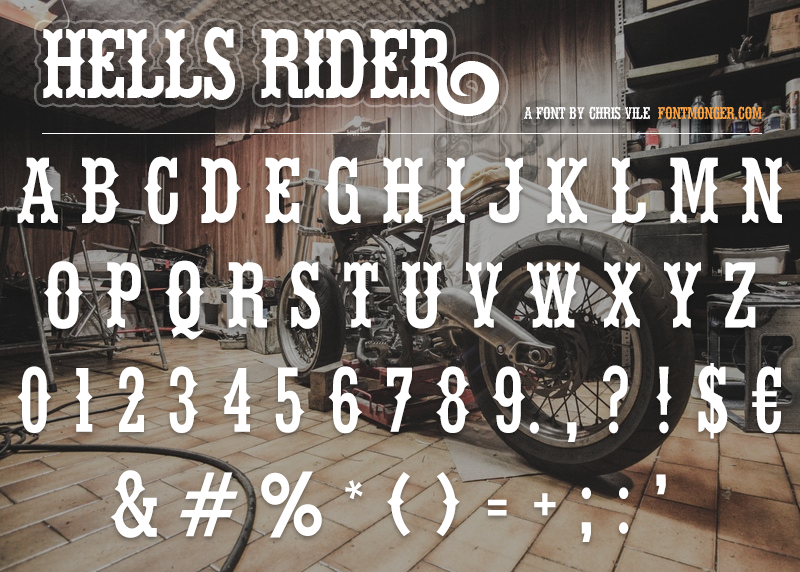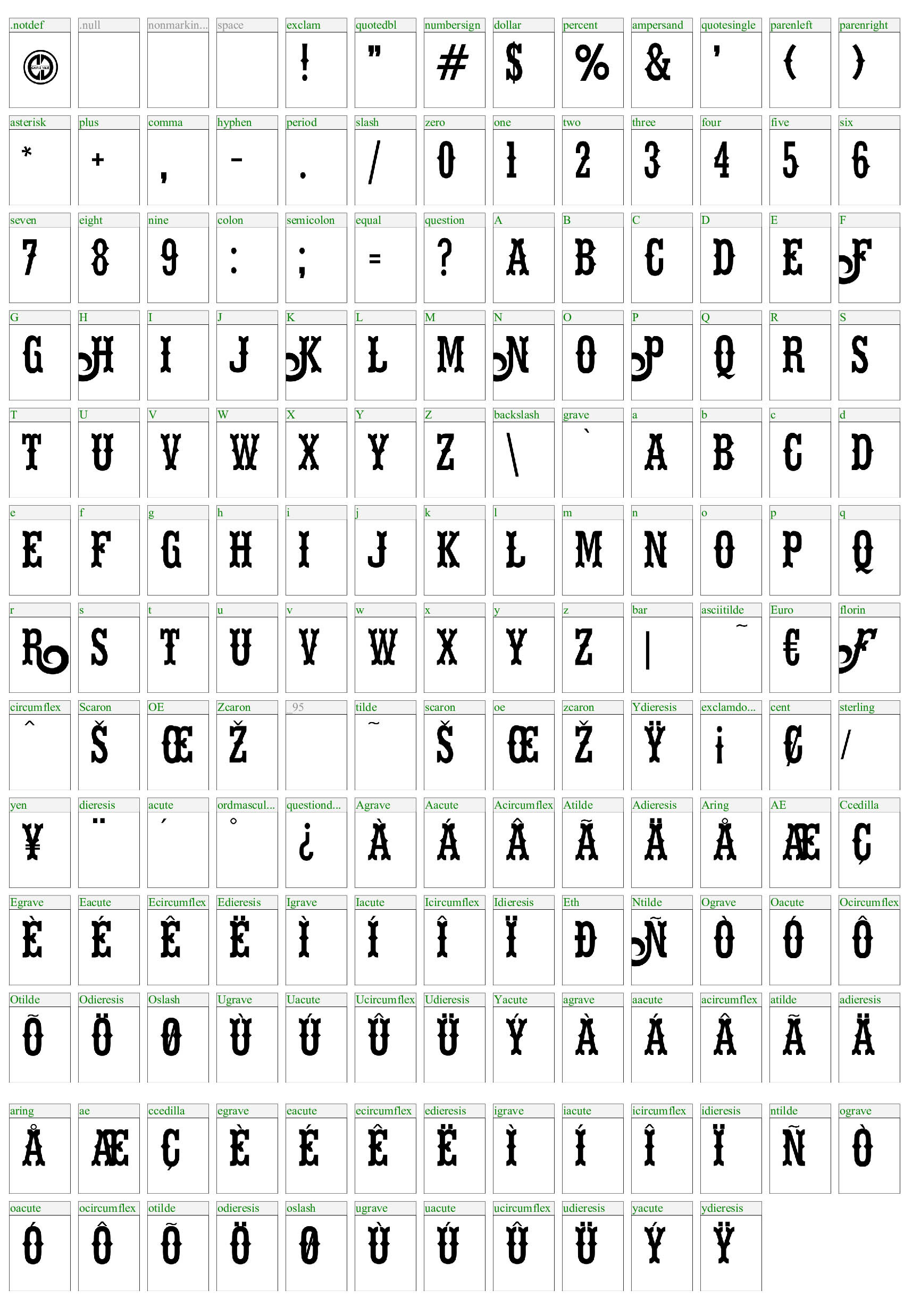
Lowercase: Same as uppercase but without the accents
Numbers: Yes
Symbols: Yes
Accents: Yes
Theme: Western
Font includes these western borders and rulers to use with your font: